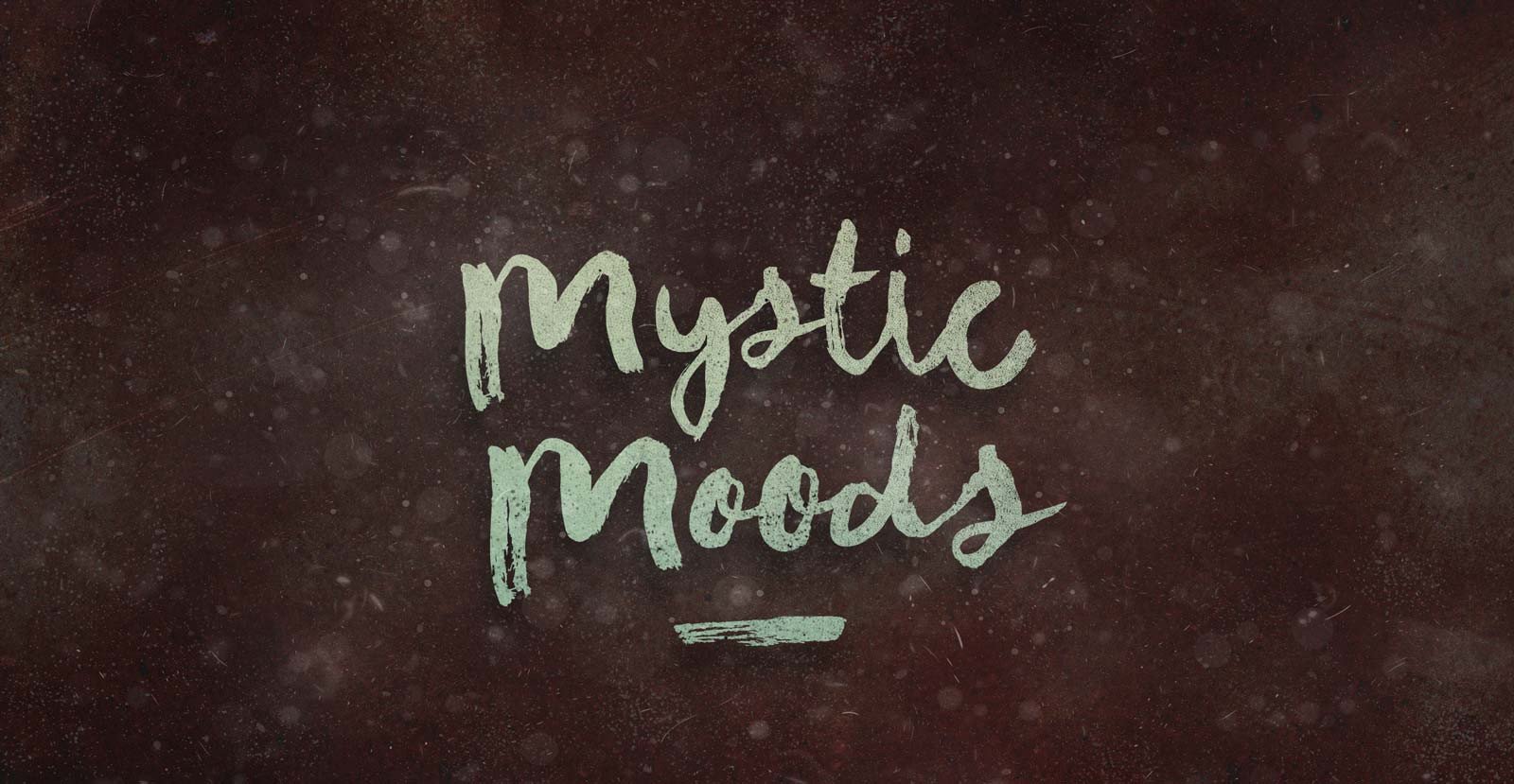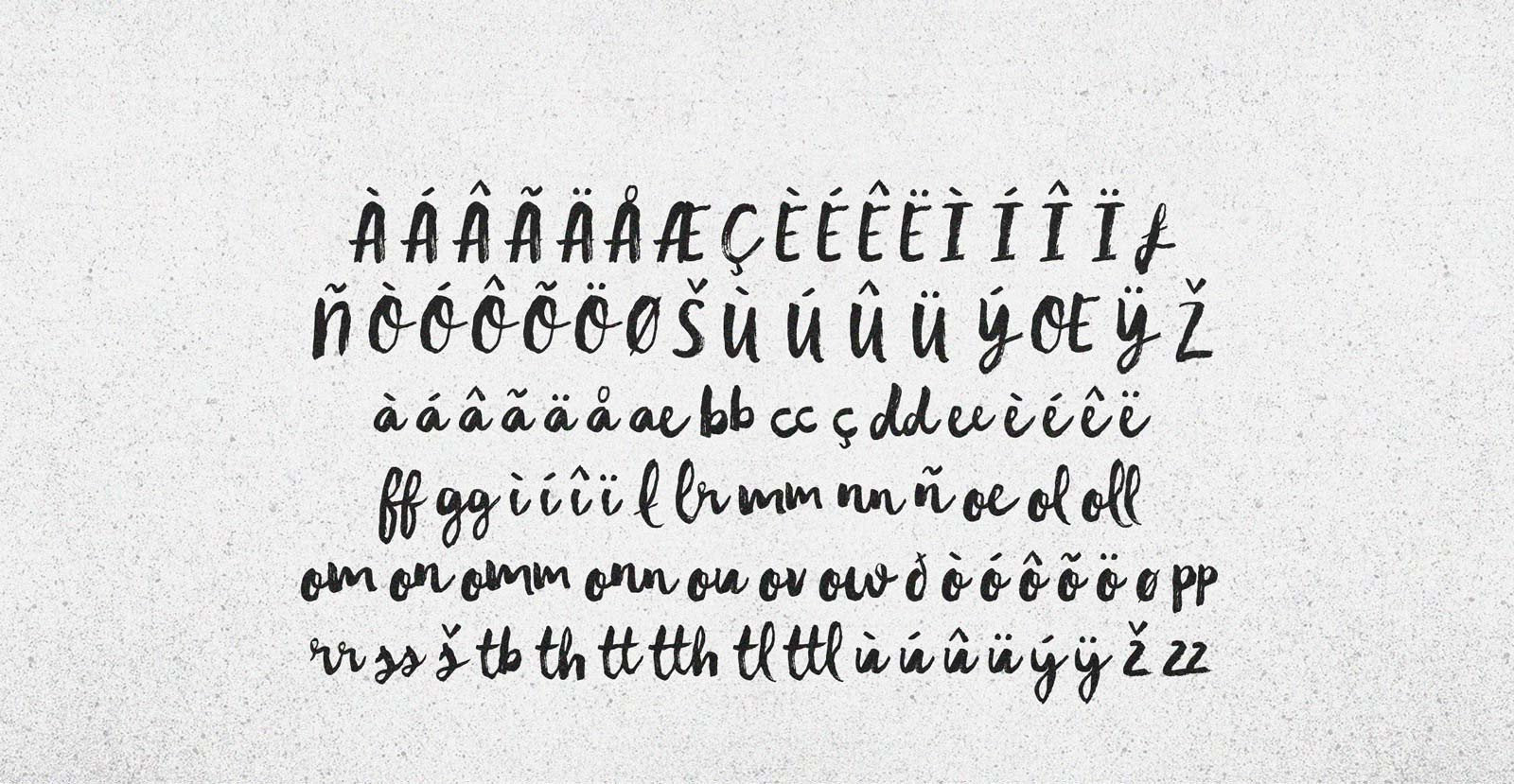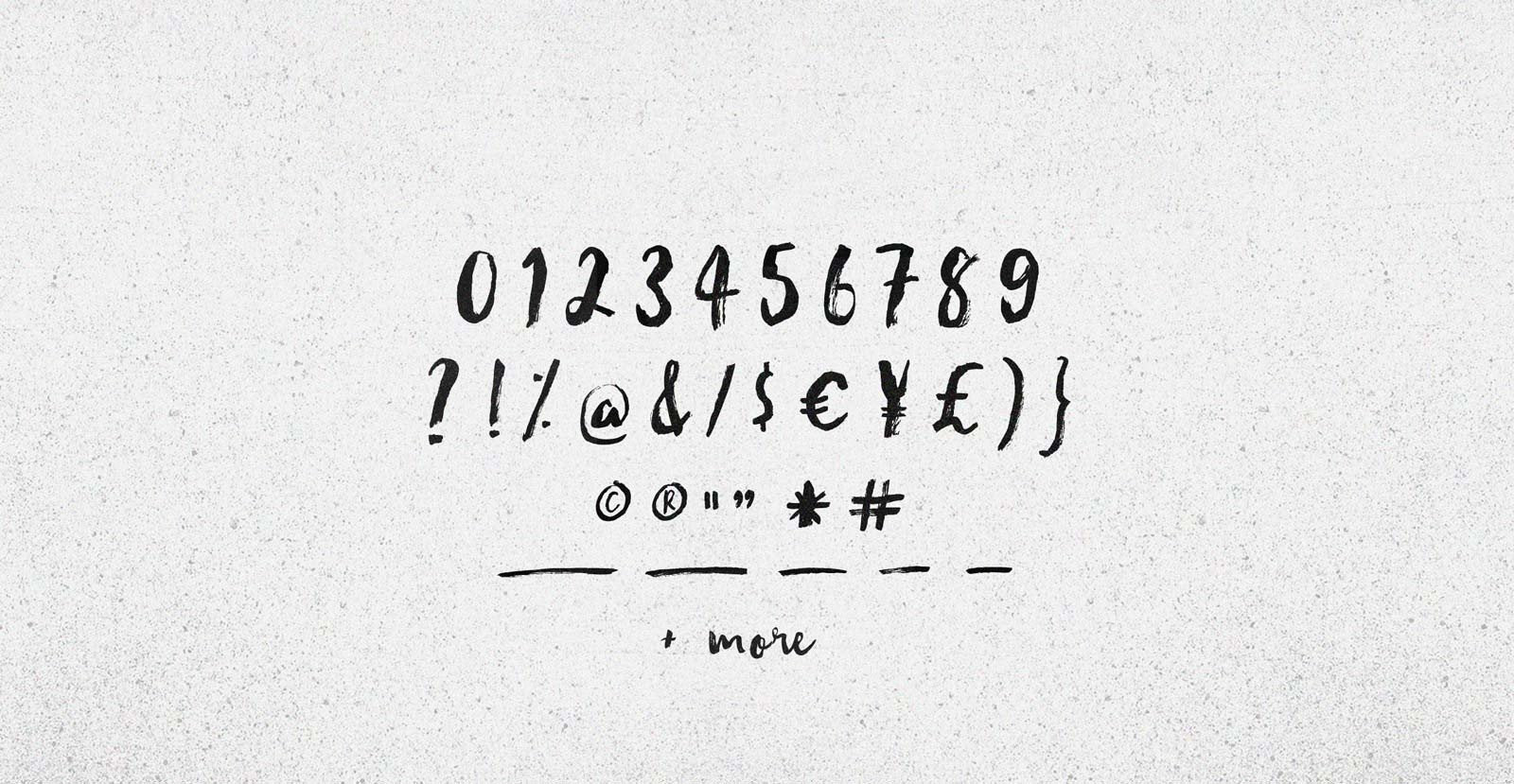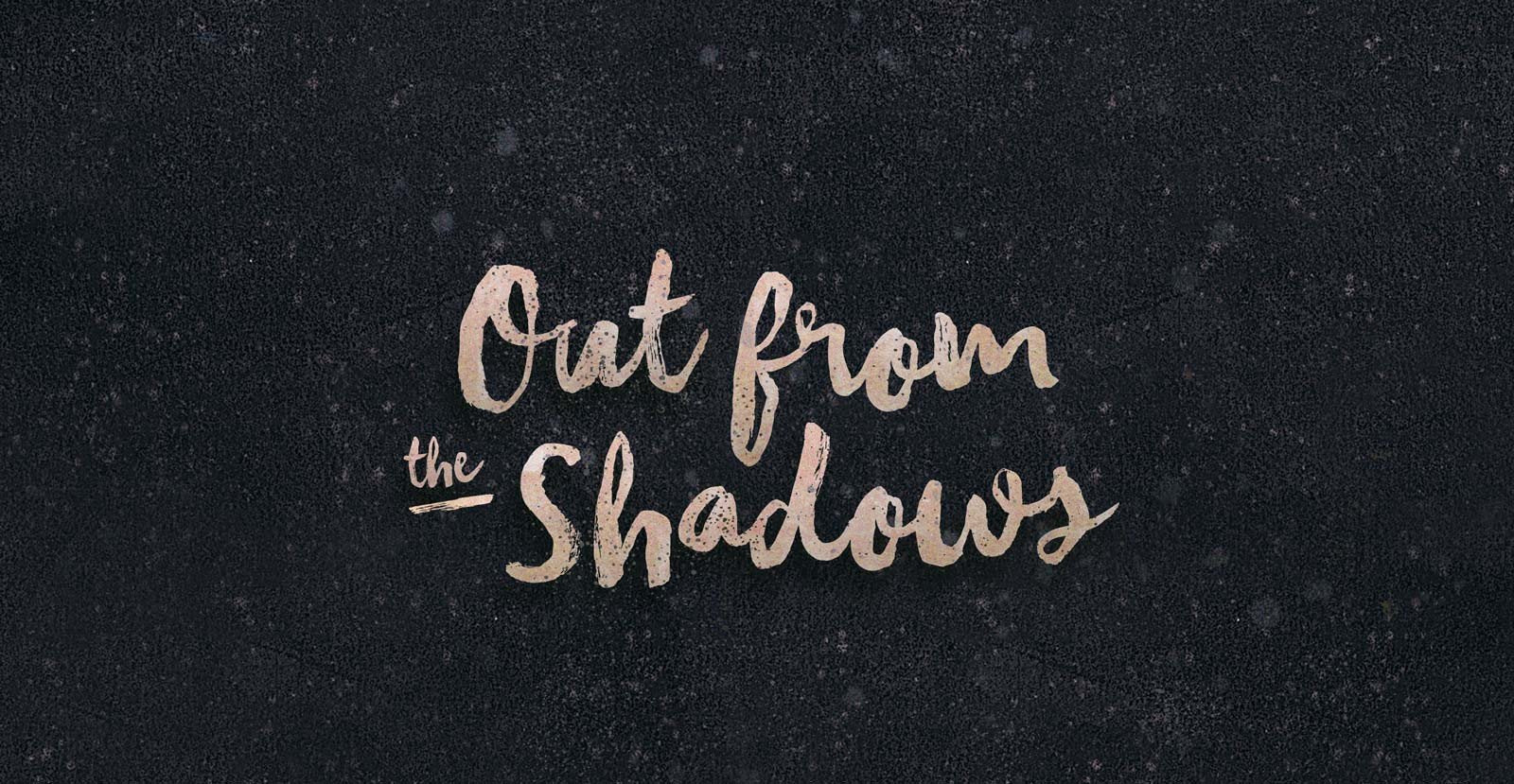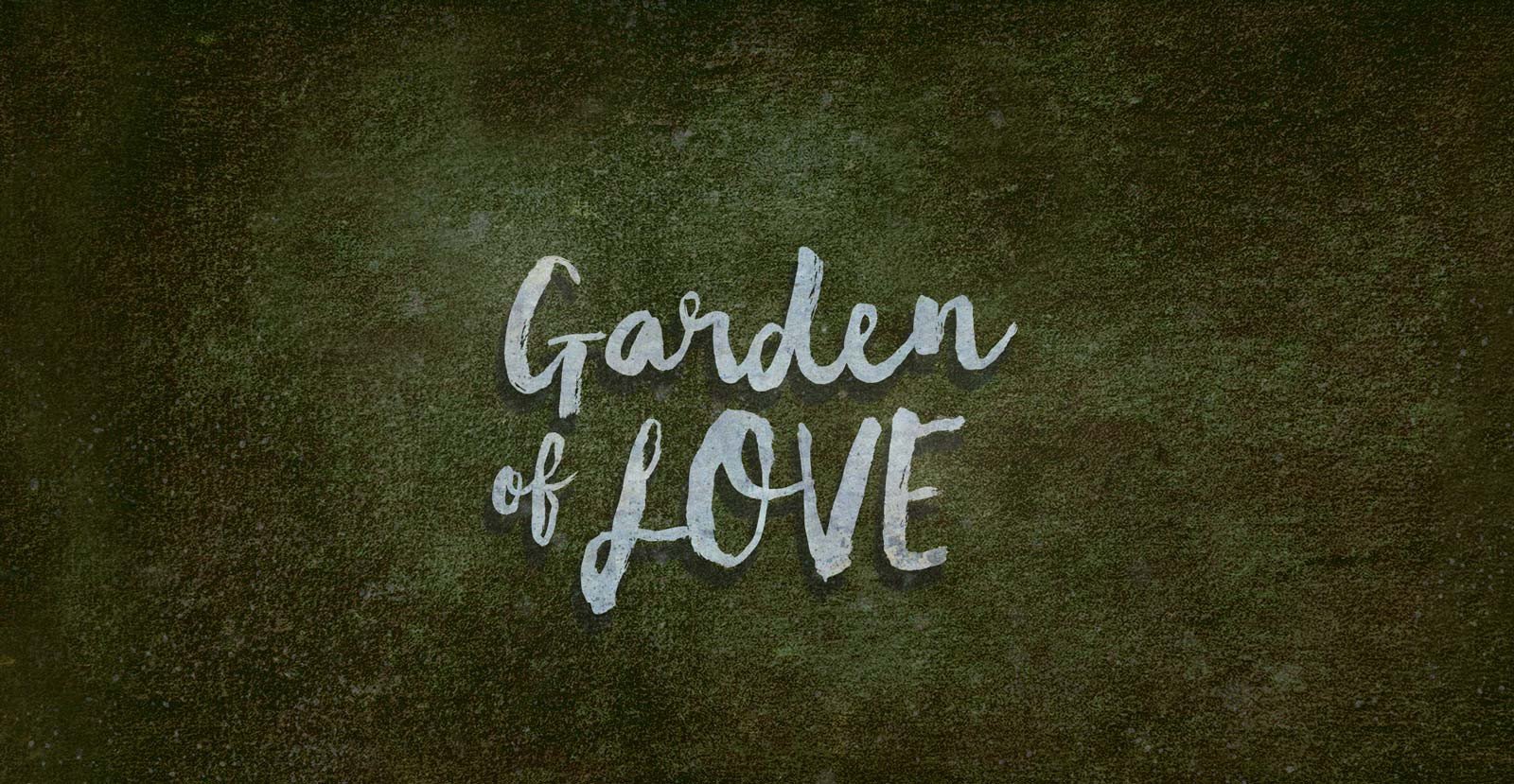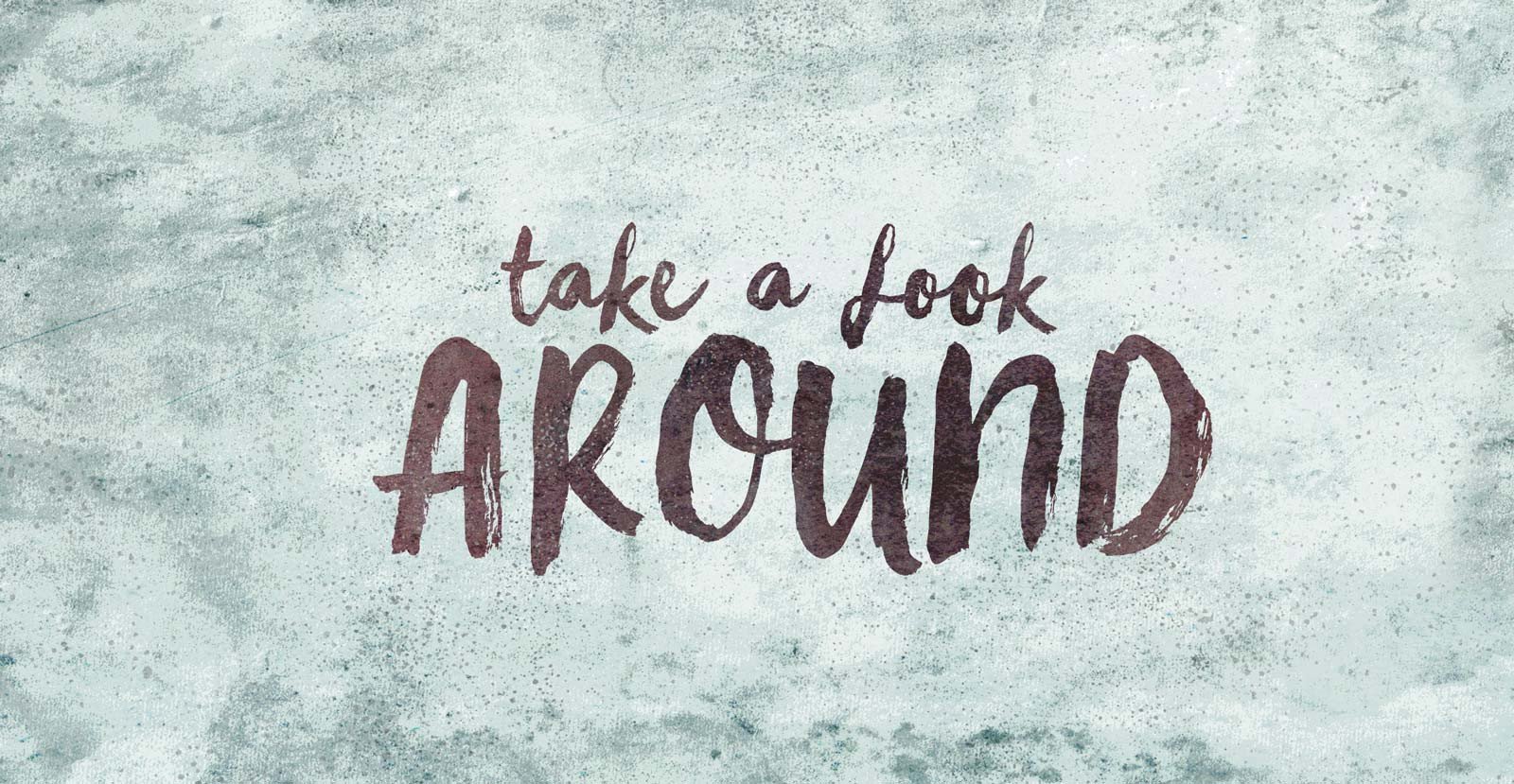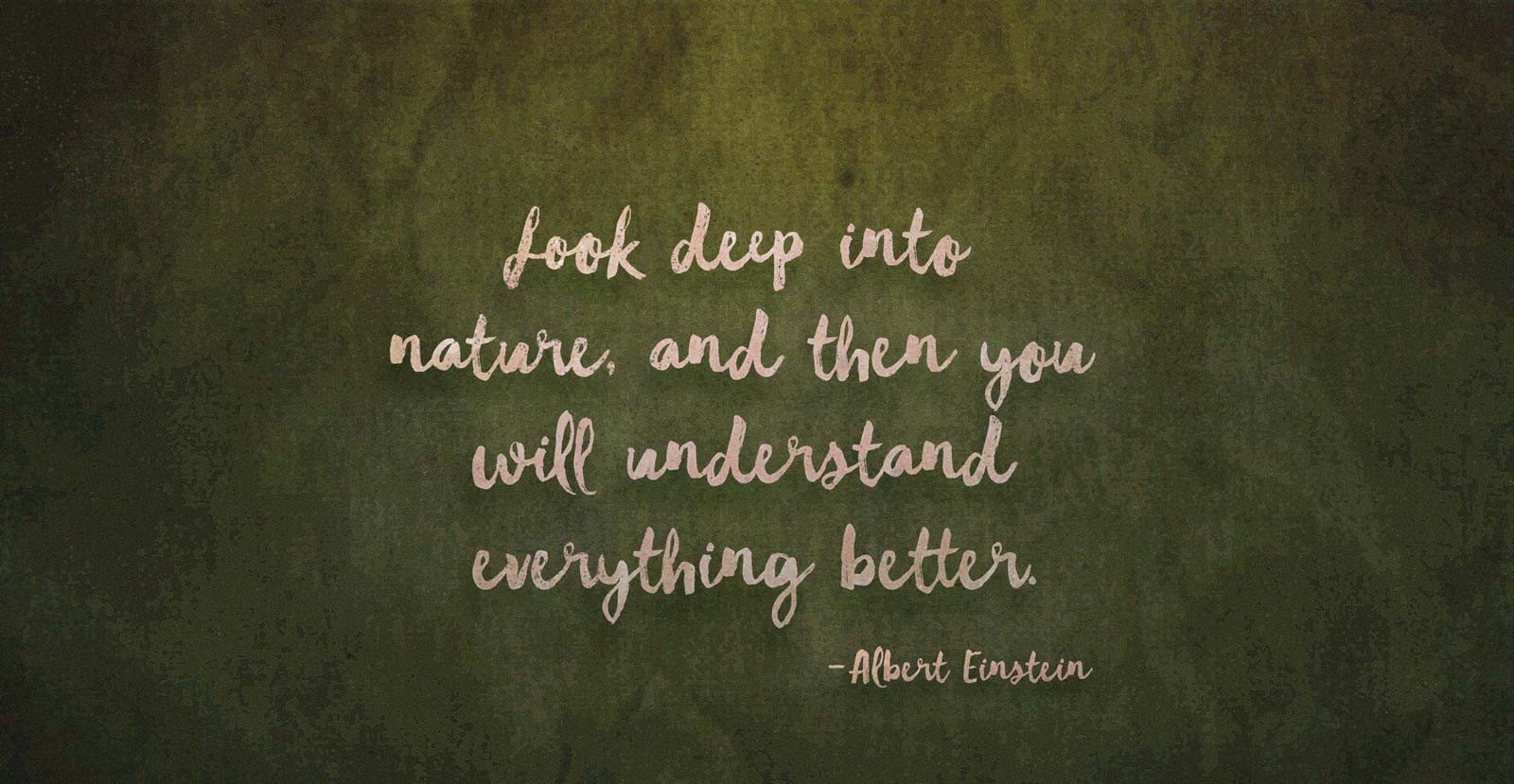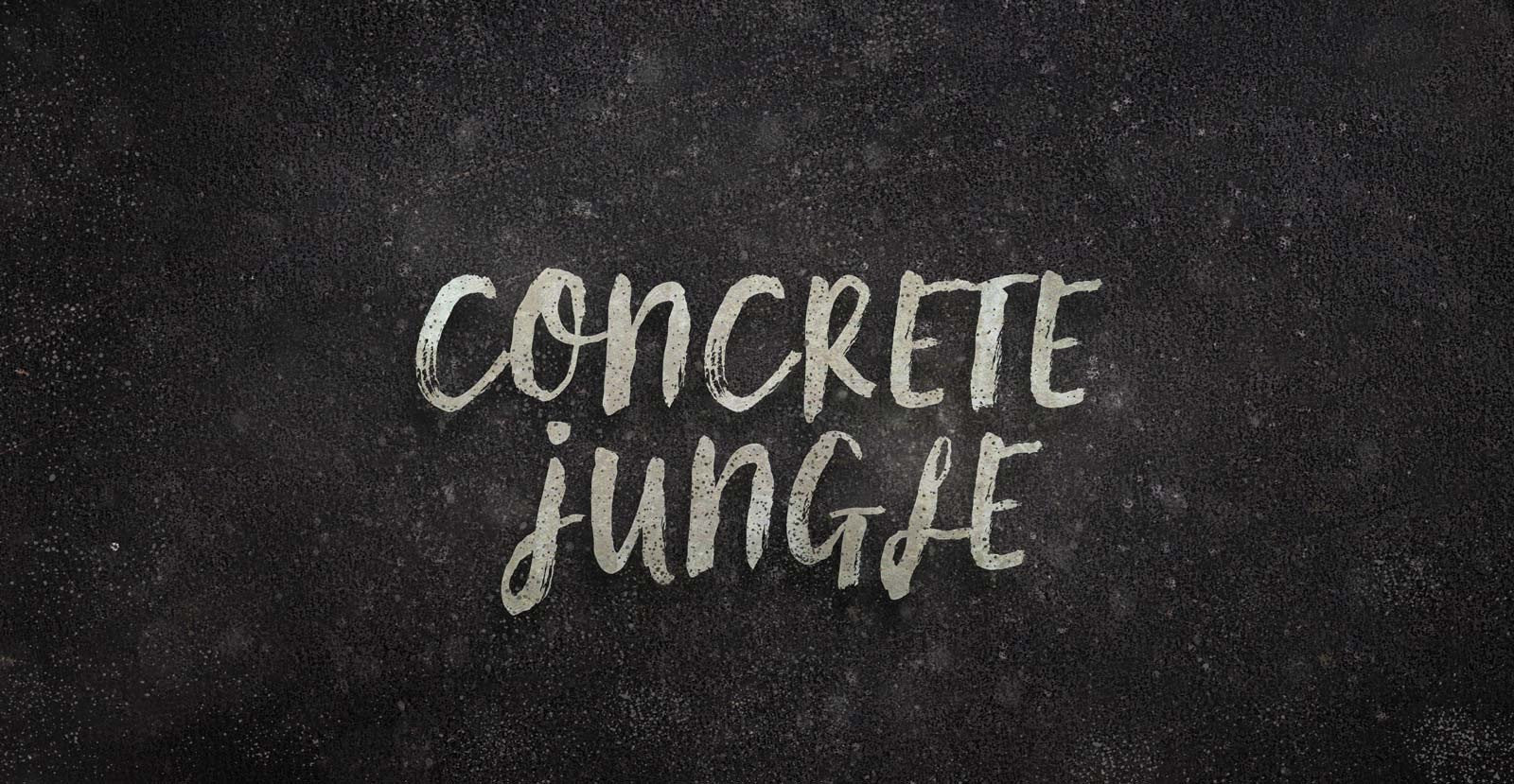
Mystic Moods
Flights of Mystic Moods. Druidic at dawn, but undergoing an unsteady union with the Divine by dusk. Changing with the wind, and further with the seasons, yet part of a separate realm from each.